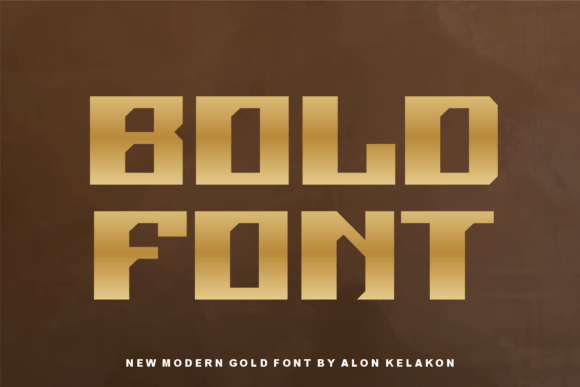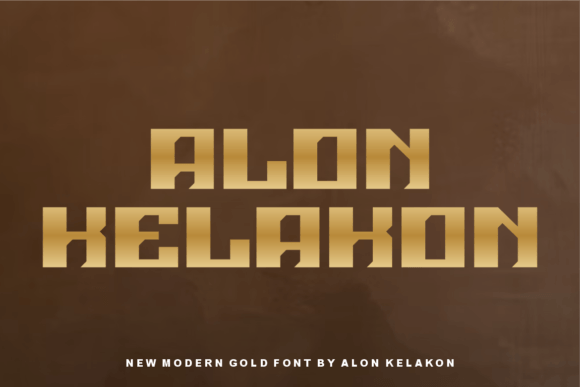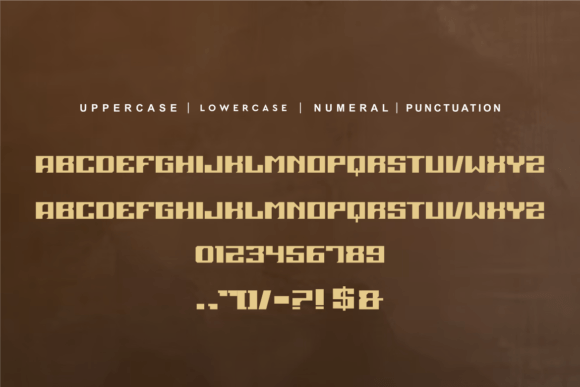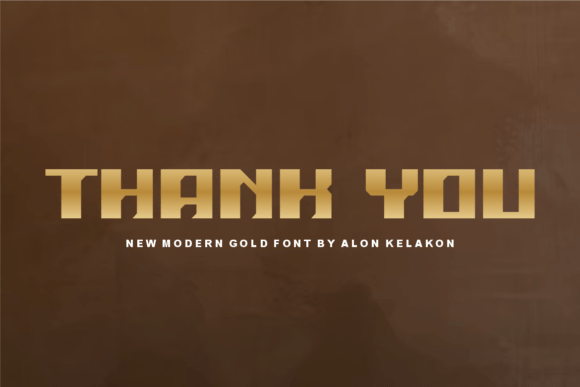
Goneros Font: Elevate Your Designs with a Modern and Stylish Display Font
Are you tired of using the same old fonts in your designs? Look no further than Goneros Font, a modern and stylish display font that’s sure to take your projects to the next level. With its unique and sleek design, Goneros is the perfect addition to any designer’s toolkit. In this article, we’ll dive into the features and benefits of Goneros Font, and explore how you can use it to elevate your designs.
What is Goneros Font?
Goneros Font is a modern and stylish display font that’s designed to make a statement. Its sleek and sophisticated design makes it perfect for use in a variety of projects, from branding and advertising to packaging and web design. With its clean lines and unique character, Goneros Font is sure to grab attention and leave a lasting impression.
Key Features of Goneros Font
So, what sets Goneros Font apart from other fonts? Here are just a few of its key features:
- Modern and stylish design: Goneros Font has a sleek and sophisticated design that’s perfect for modern designs.
- Unique character: Goneros Font has a unique character that sets it apart from other fonts.
- Clean lines: The font features clean lines and a minimalist design that’s easy to read and understand.
- Highly versatile: Goneros Font can be used in a variety of projects, from branding and advertising to packaging and web design.
Benefits of Using Goneros Font
So, why should you choose Goneros Font for your next project? Here are just a few of the benefits of using this modern and stylish display font:
- Adds a touch of sophistication: Goneros Font adds a touch of sophistication and elegance to any design.
- Grabs attention: The font’s unique character and sleek design make it perfect for grabbing attention and standing out from the crowd.
- Easy to read: Despite its stylish design, Goneros Font is easy to read and understand, making it perfect for use in a variety of projects.
- Highly versatile: Goneros Font can be used in a variety of projects, from branding and advertising to packaging and web design.
How to Use Goneros Font in Your Designs
So, how can you use Goneros Font in your designs? Here are a few tips and tricks to get you started:
- Use it as a headline font: Goneros Font is perfect for use as a headline font, where its unique character and sleek design can really make a statement.
- Pair it with other fonts: Goneros Font pairs well with a variety of other fonts, making it easy to create a cohesive and stylish design.
- Experiment with different colors: Goneros Font looks great in a variety of colors, so don’t be afraid to experiment and find the perfect color for your design.
In conclusion, Goneros Font is a modern and stylish display font that’s sure to elevate your designs. With its unique character, sleek design, and highly versatile nature, Goneros Font is the perfect addition to any designer’s toolkit. Whether you’re working on a branding project, an advertising campaign, or a web design project, Goneros Font is sure to make a statement and leave a lasting impression.